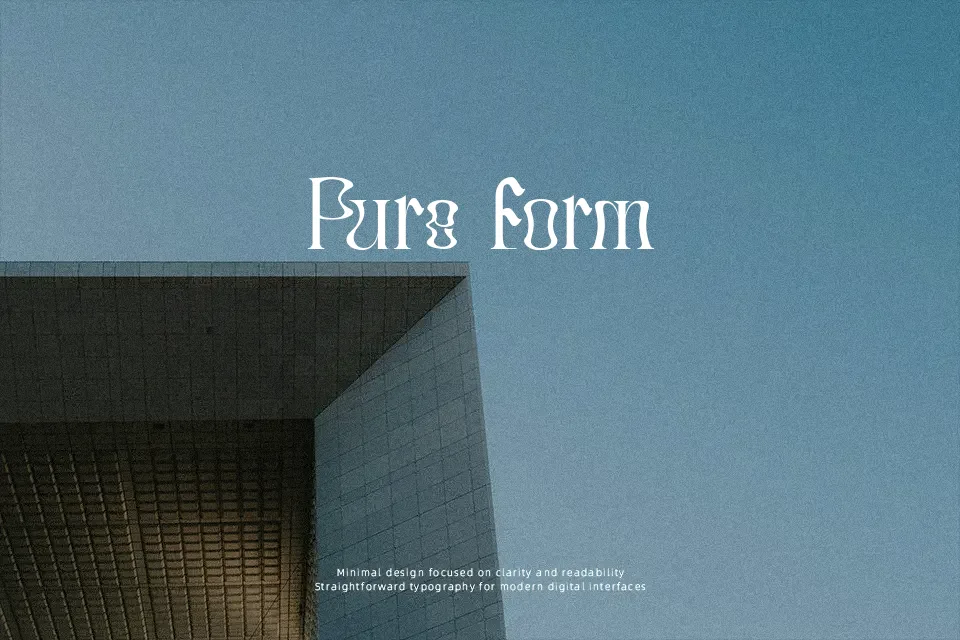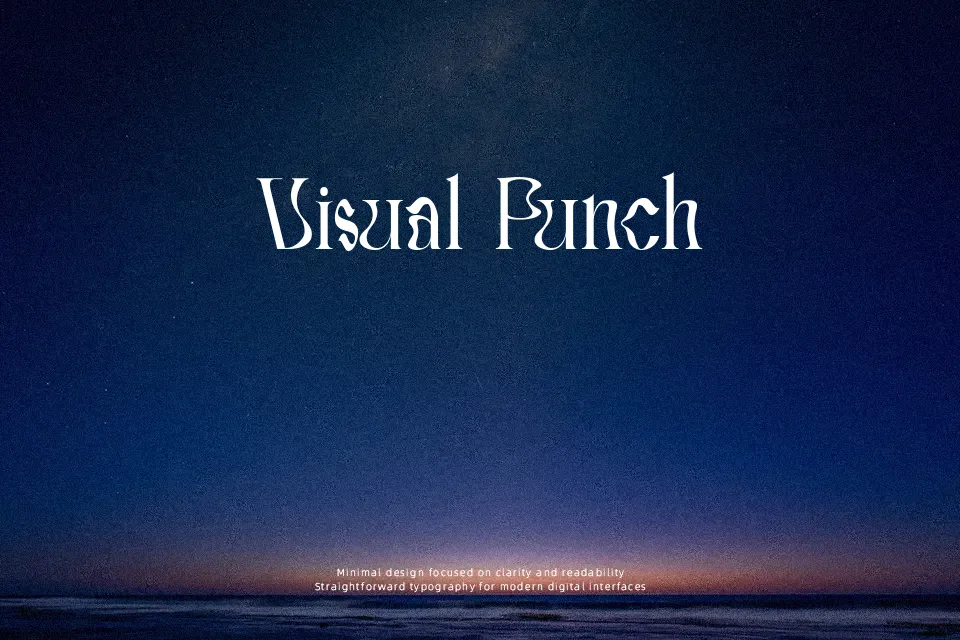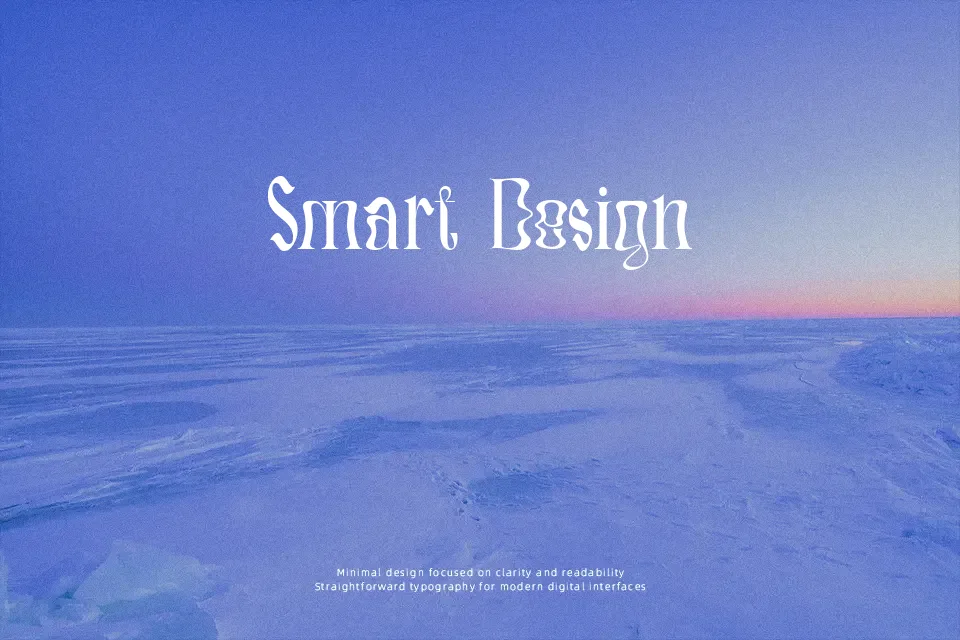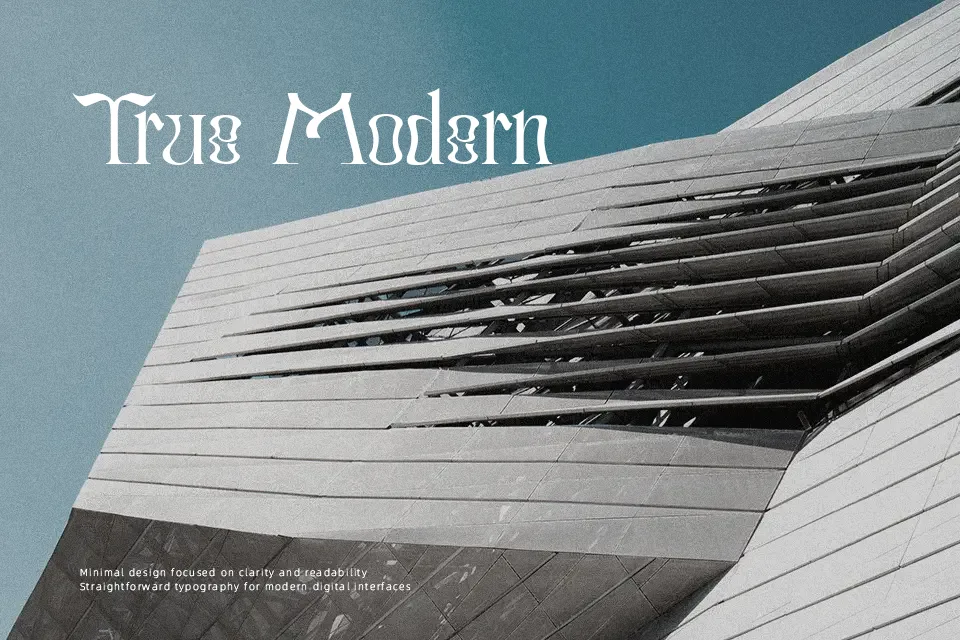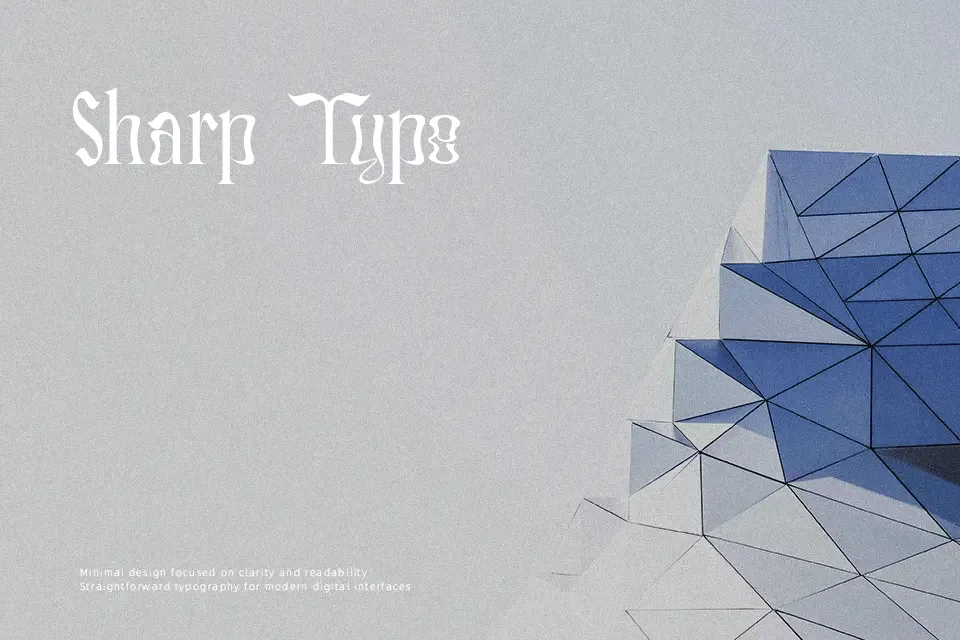
Strarat Elegante Font
Strarat Elegante Font uses a high-contrast serif structure with curved details, expressive terminals, and narrow-looking proportions that give display text a refined but unconventional rhythm. Its letterforms are most effective in short words, titles, and identity work, where the distinctive shapes have space to register. The design can bring a decorative edge to invitations, labels, and editorial-style covers without relying on heavy weight. Spacing should be handled carefully in tightly set text, as the ornamental forms can make words feel busy. It reads more comfortably at larger sizes than in captions or extended copy.
Best For: fashion magazine covers,cosmetic packaging,invitation headings,poster titles
Perfect for fashion, invitation, and logo, with a artistic and decorative style.